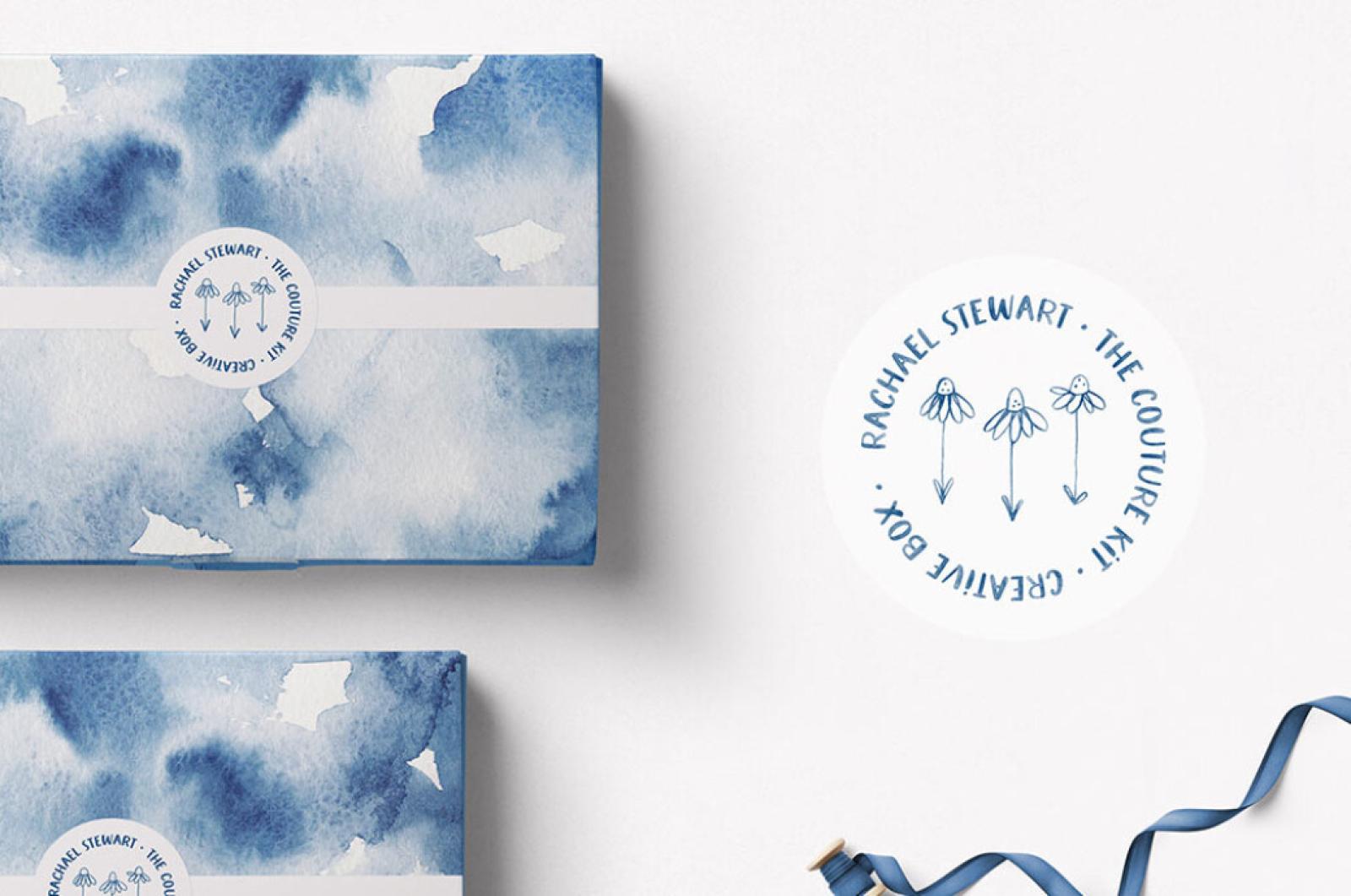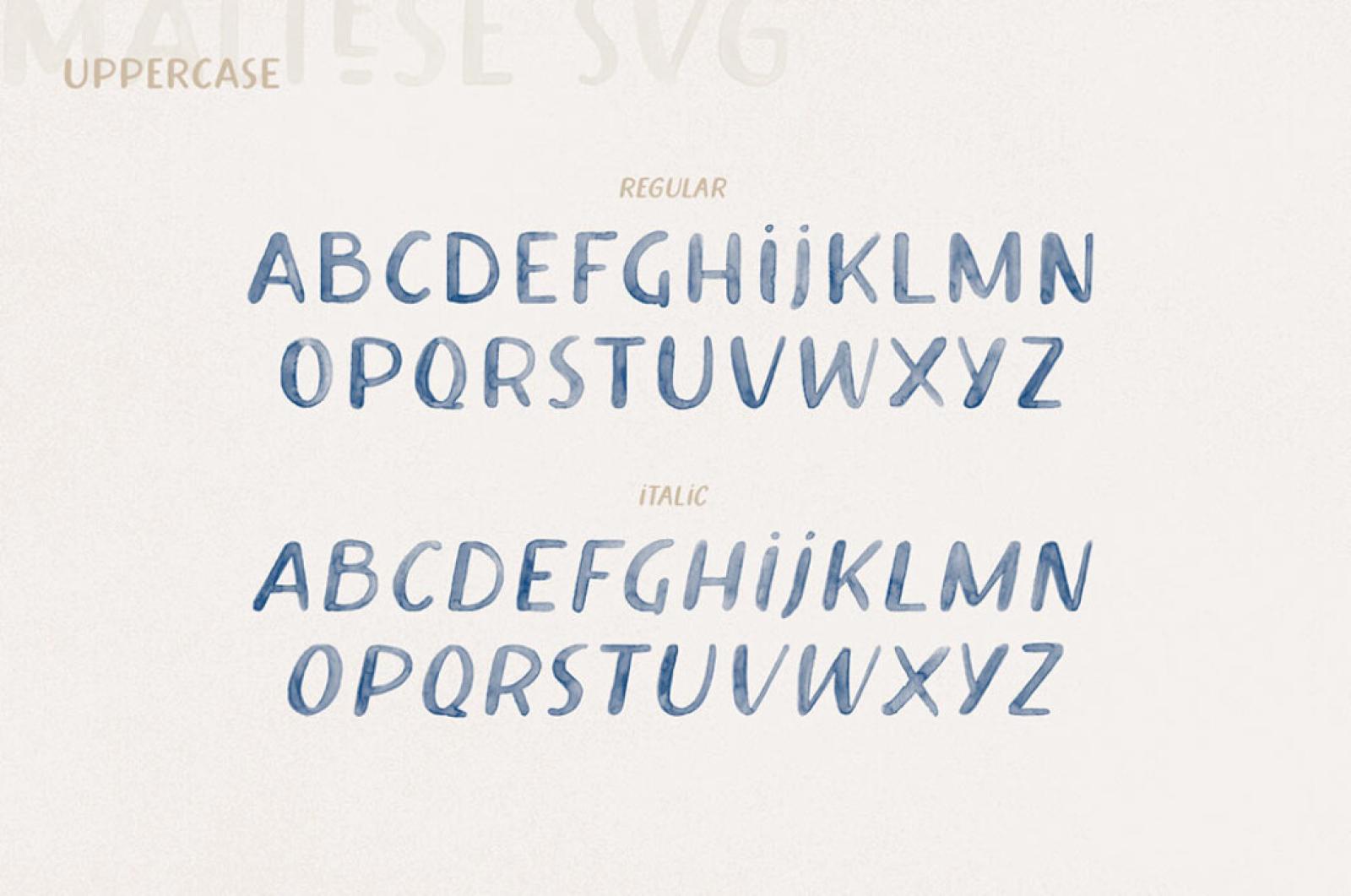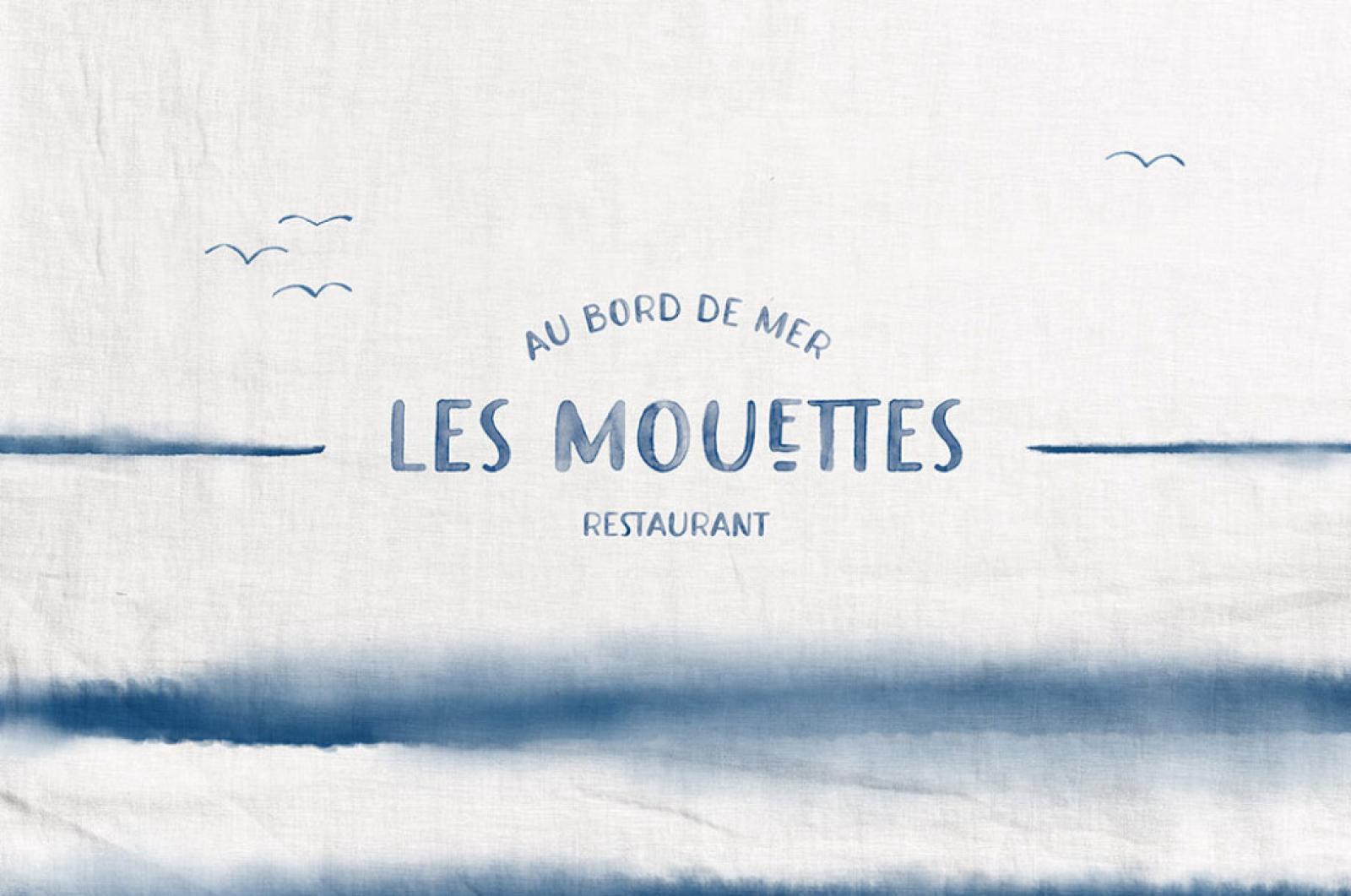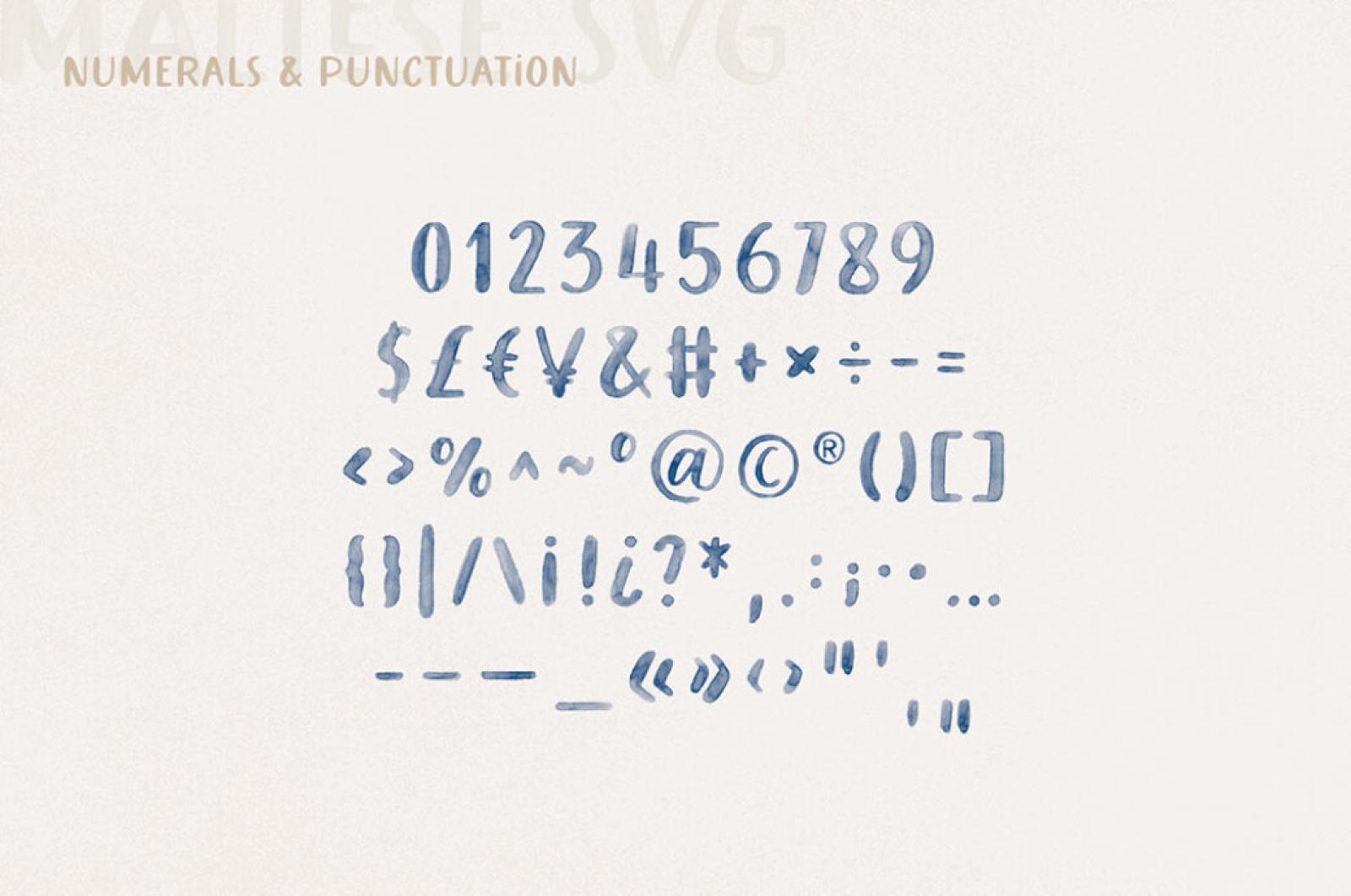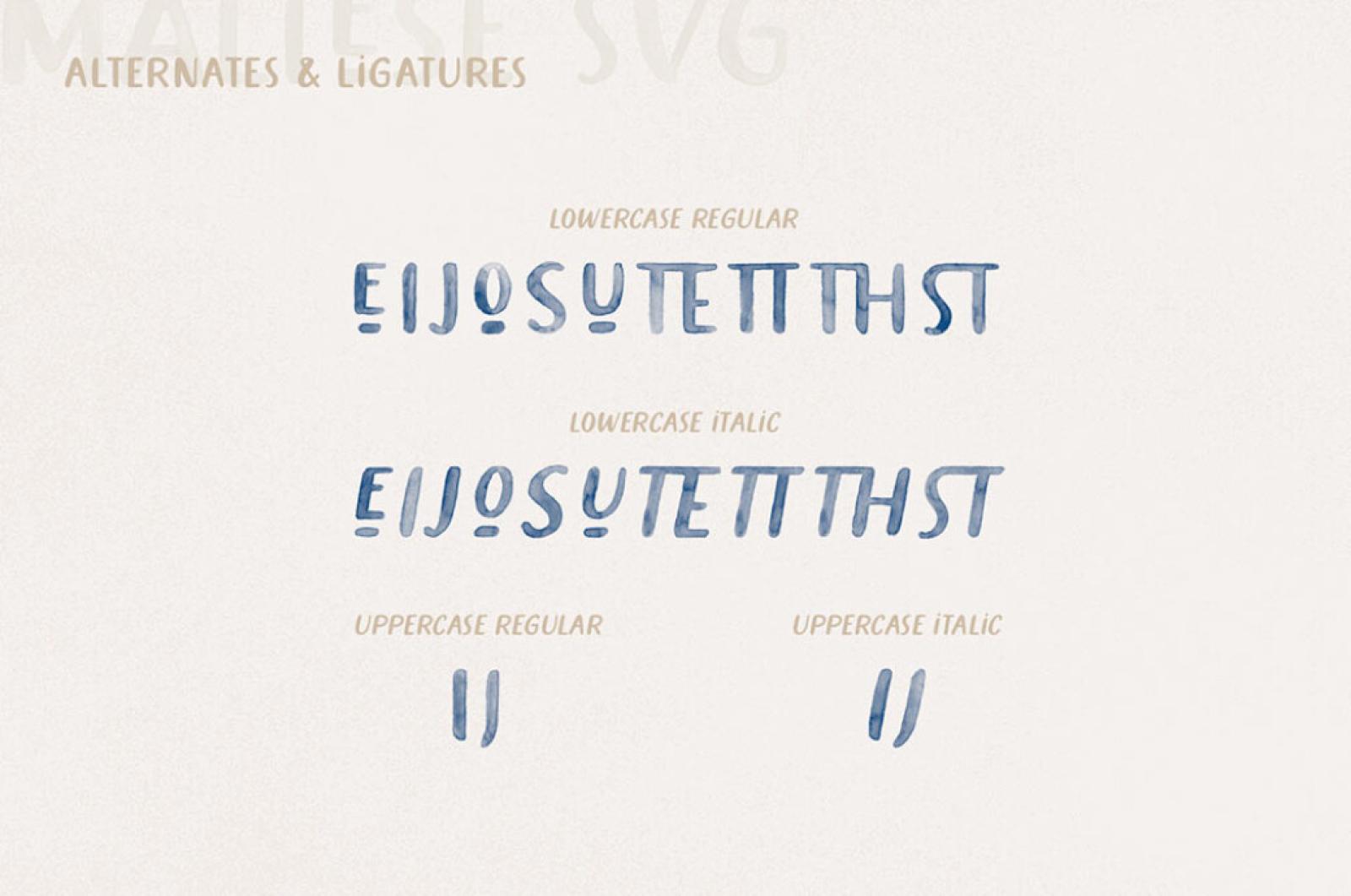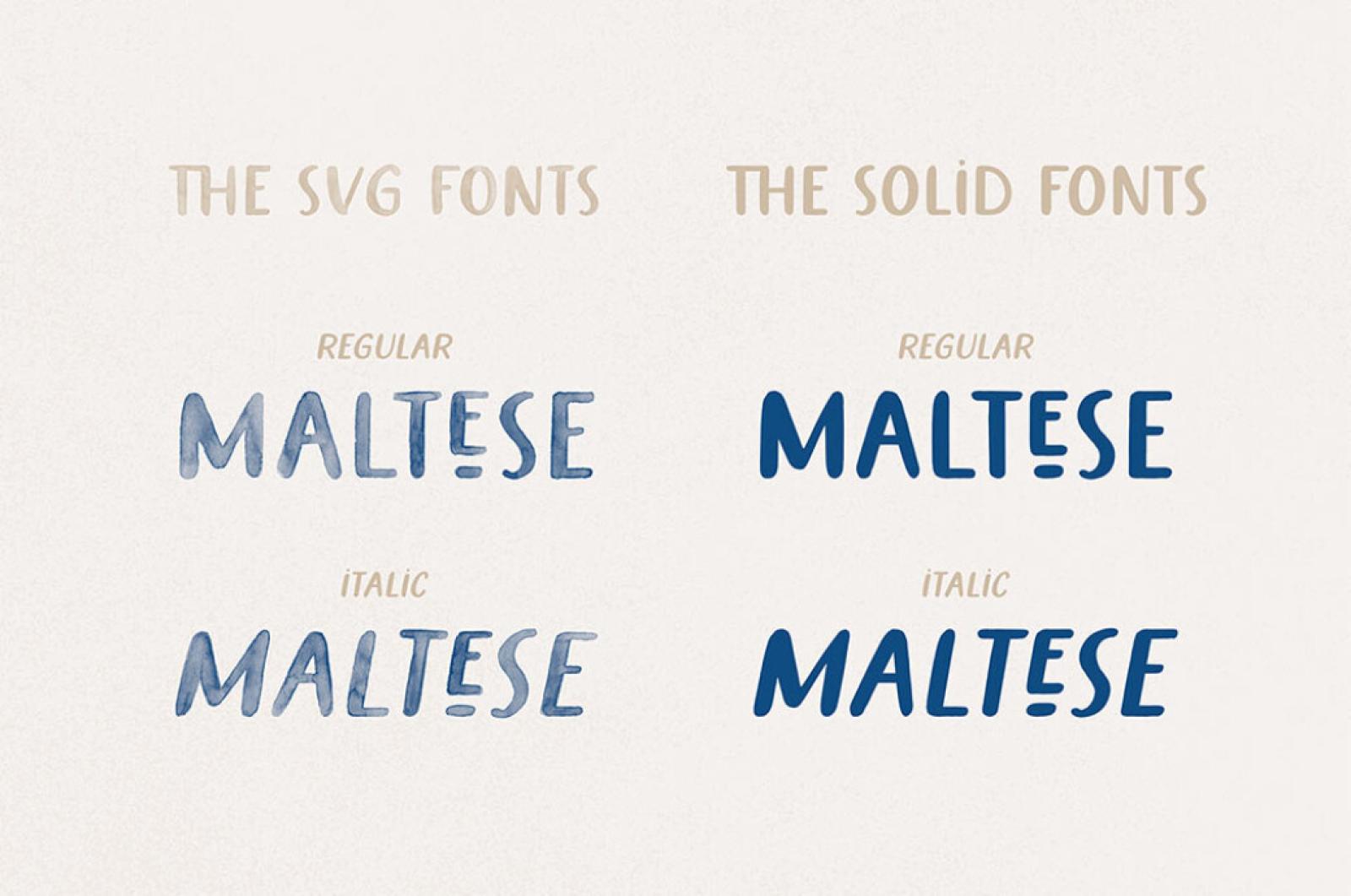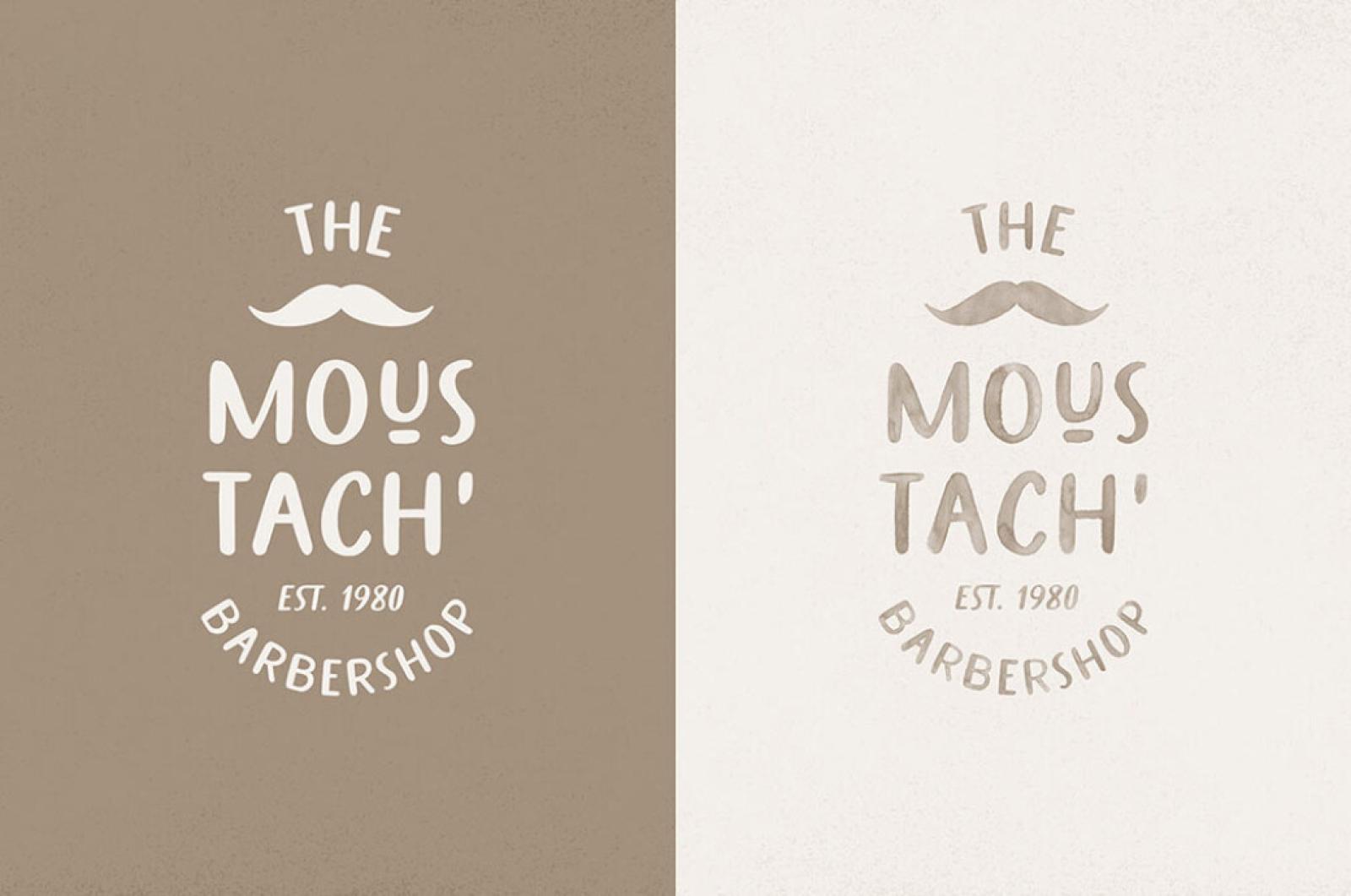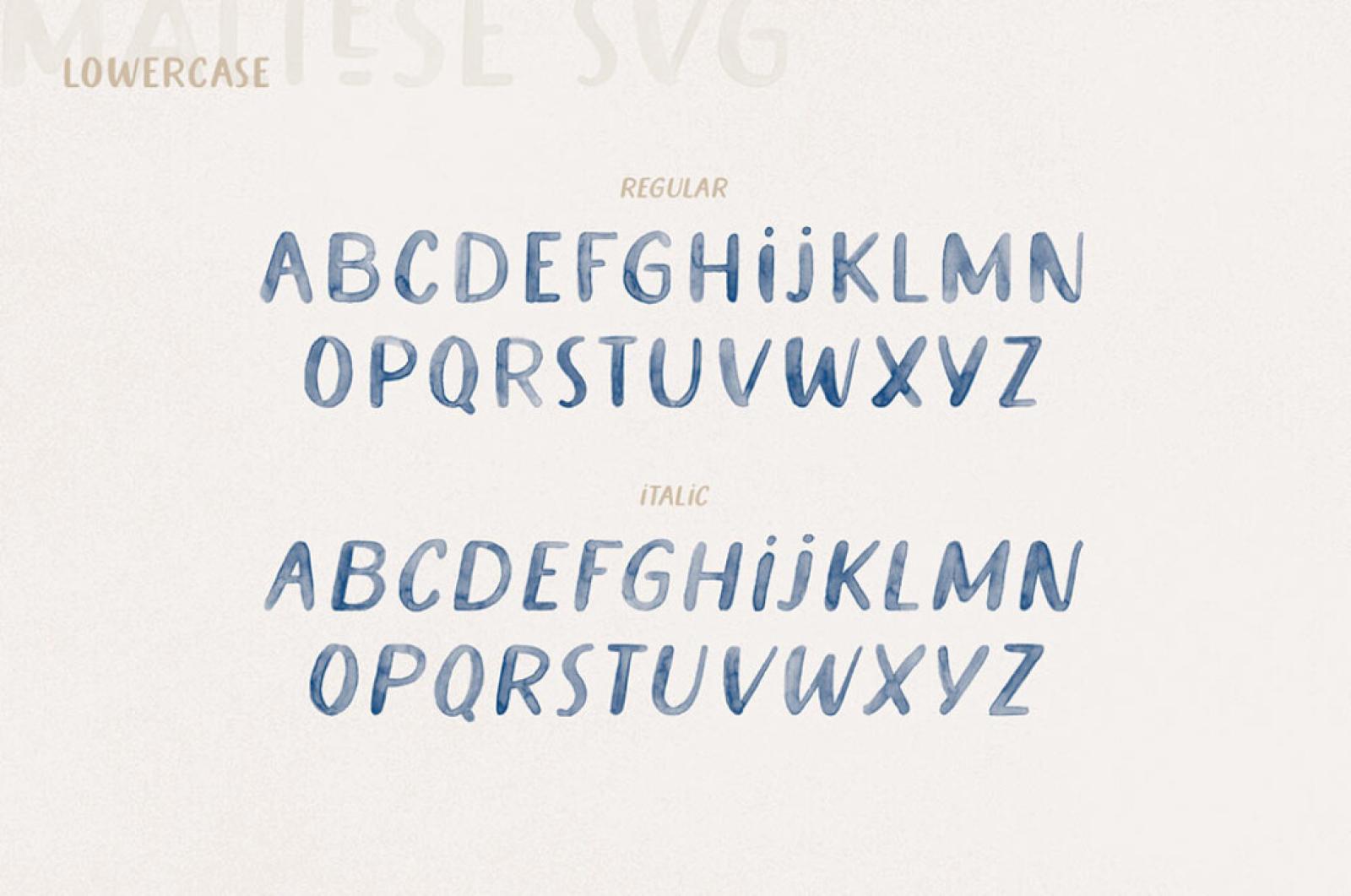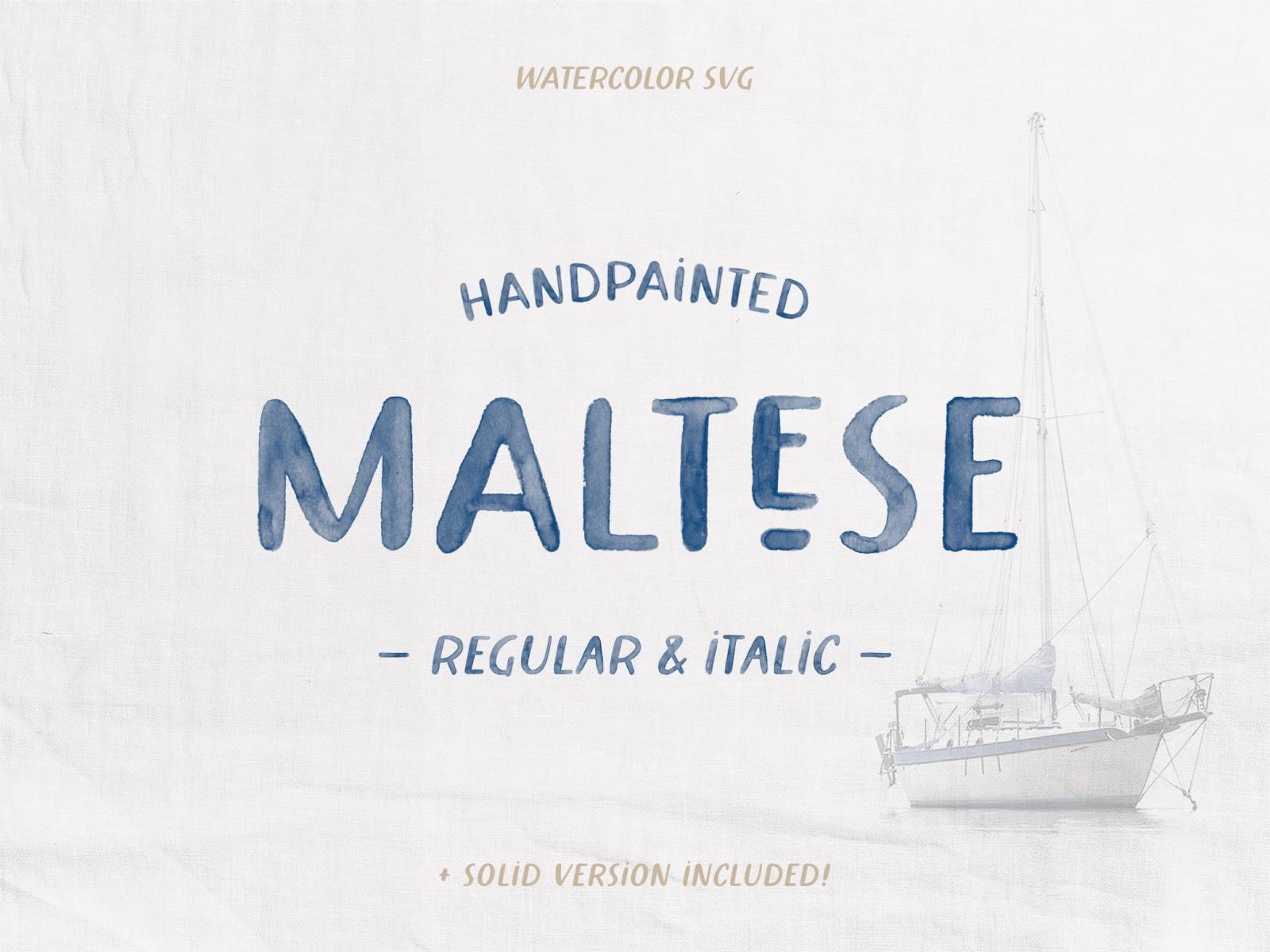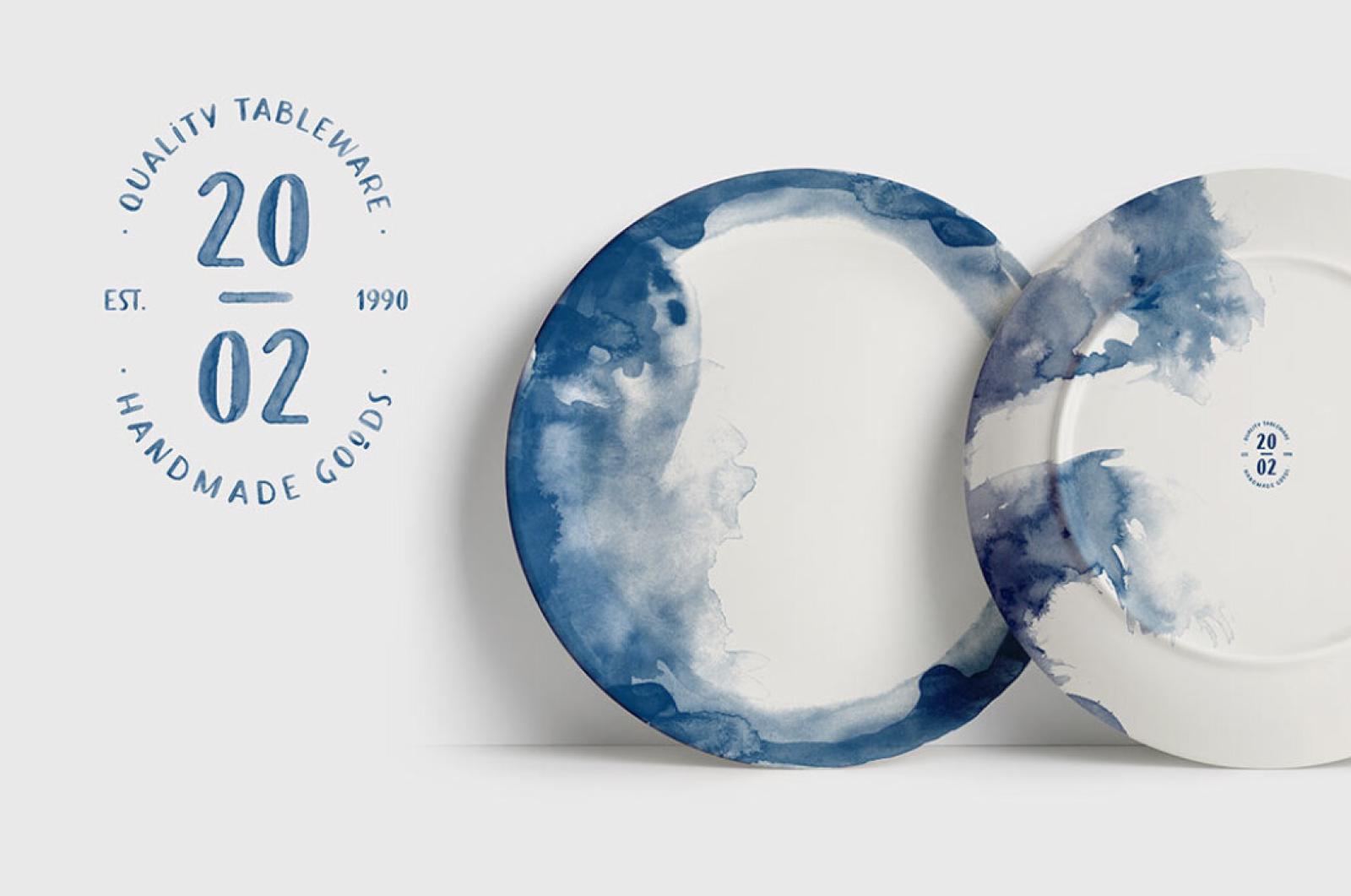
Maltese Watercolor Font
Embraing lightness and maritime grace, this watercolor font will steal your heart once and for good. You'll barely tell it's digital, that's how authentic it looks with its texture.
Discover the hand-painted SVG font with watercolor texture and transparency inspired by the sea! Maltese is an all caps font family that comes in 2 different forms (SVG & Solid) with 2 styles each: regular & italic. Maltese has been painted with extreme care and polished to keep the maximum of the watercolor texture and details. Each character of the font has been drawn individually so letters from the regular and italic version don't look the same. It will give your work a realistic watercolor look and a lovely handmade feel!